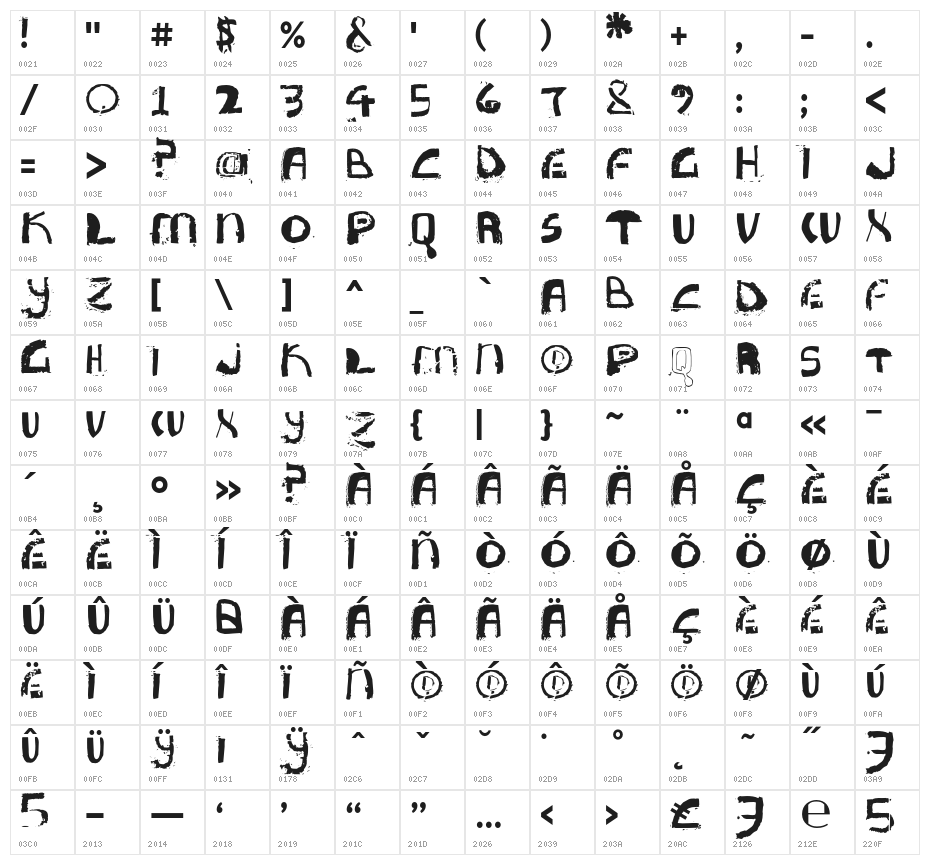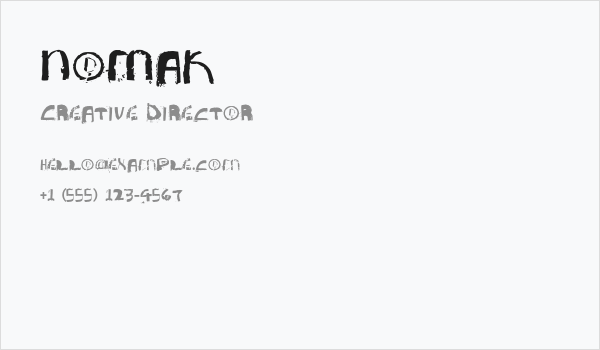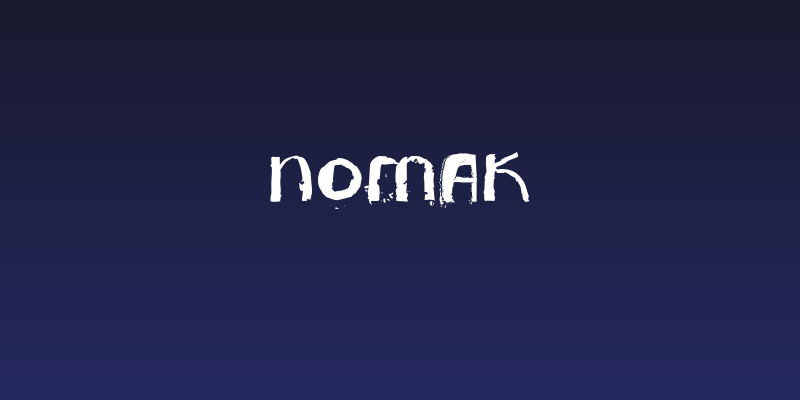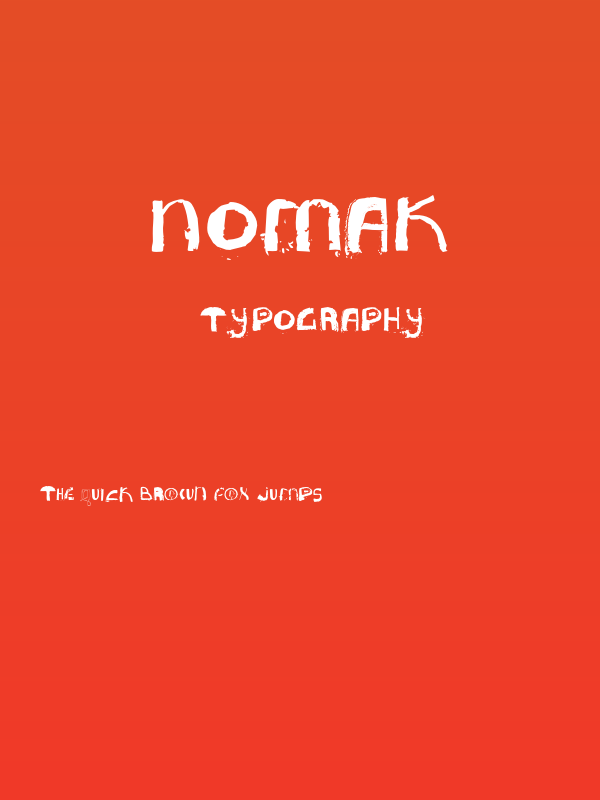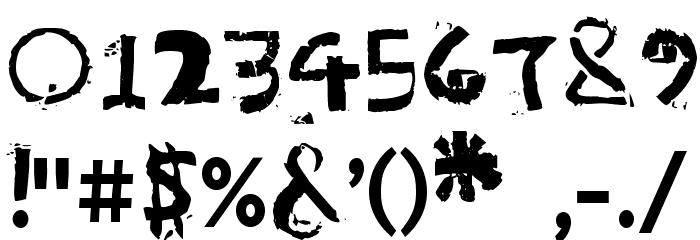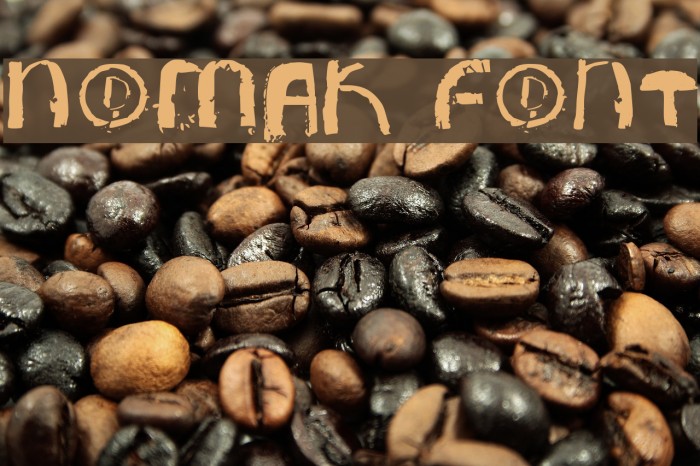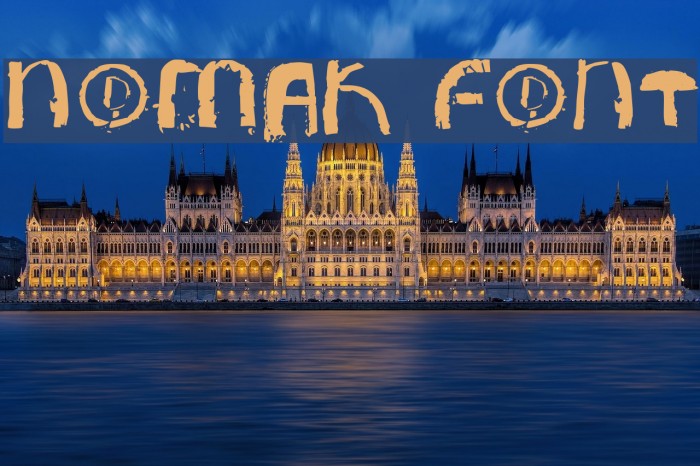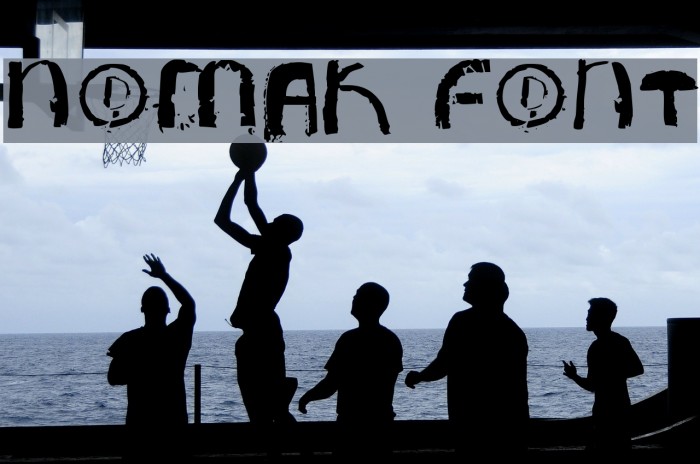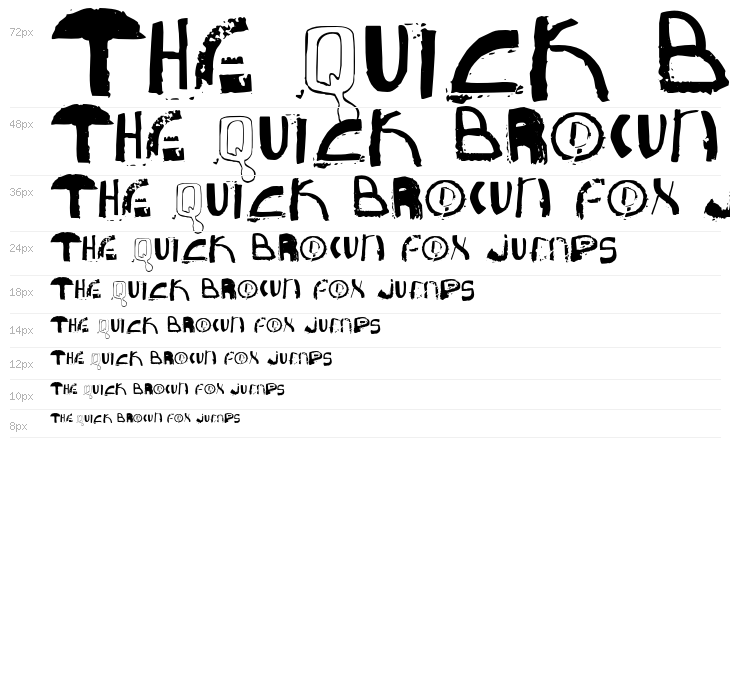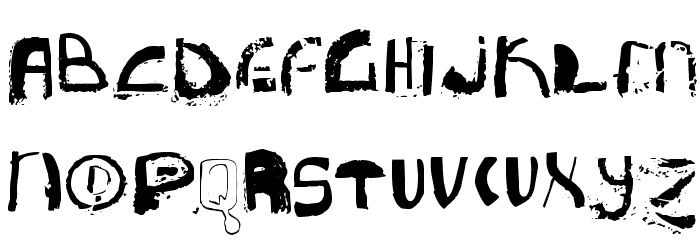
NoMak Font
NoMak Description
This font exhibits a distressed, grunge style with a bold and rugged appearance. Each character appears as if it has been stamped or painted, with irregular edges and a textured finish that gives it a worn, vintage look. The uppercase and lowercase letters maintain a consistent style, with some characters featuring unique, artistic distortions. The numbers and special characters follow the same aesthetic, ensuring a cohesive look across all glyphs. This font is ideal for projects that require a raw, edgy feel, such as music album covers, posters, or any design that aims to convey a sense of rebellion or nonconformity.
| Overall Style | Vintage, Grunge |
| Proposed Projects | Ideal for music album covers, edgy posters, rebellious branding, and artistic designs. |